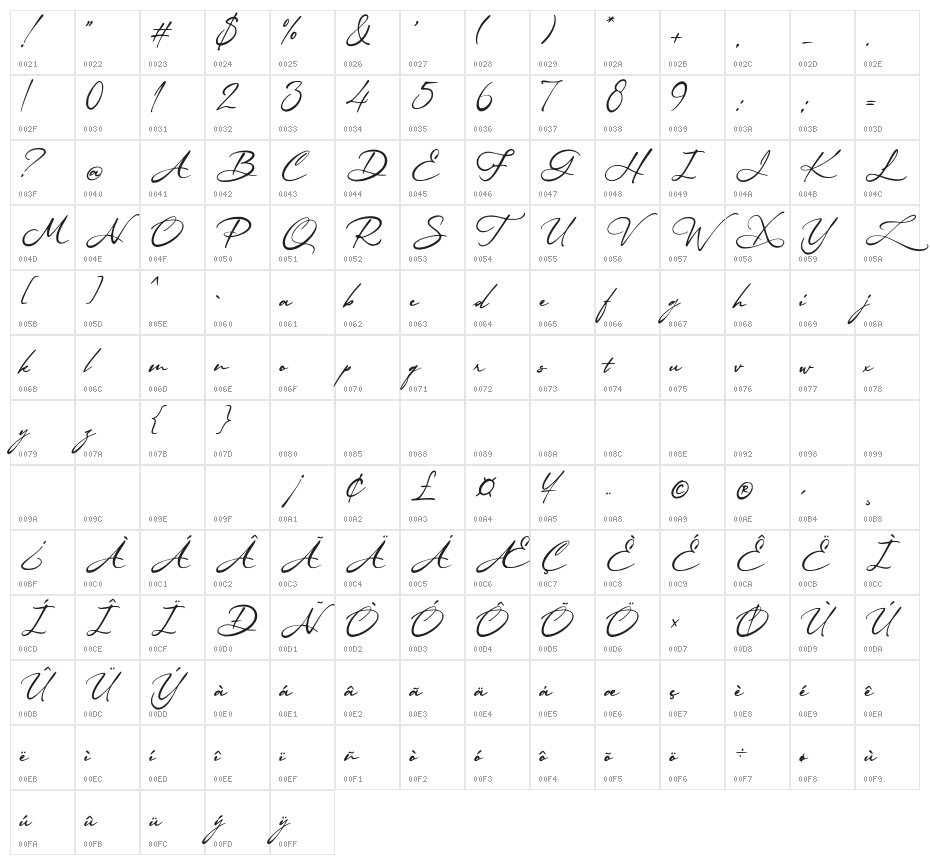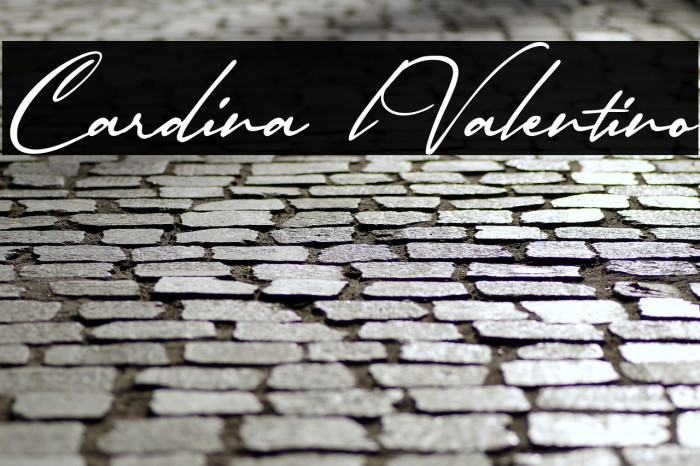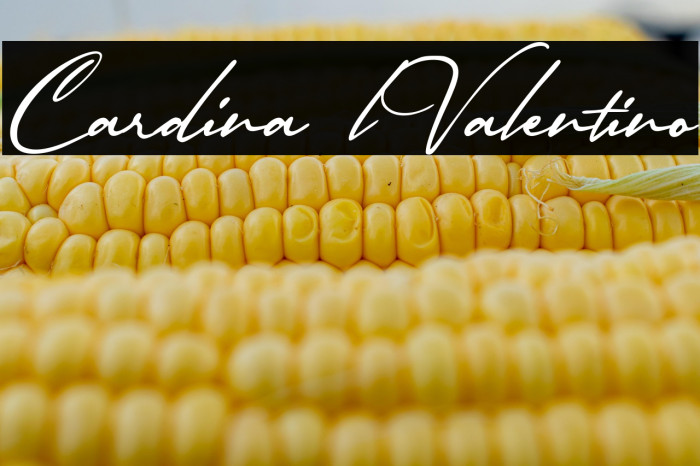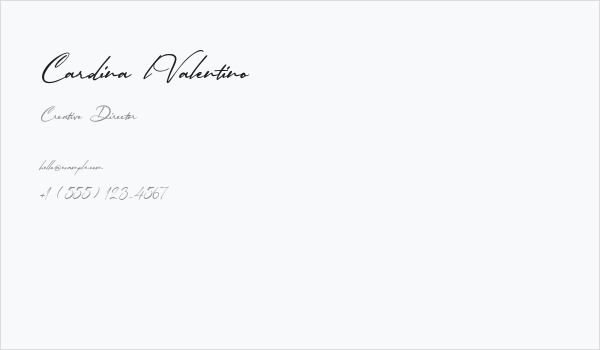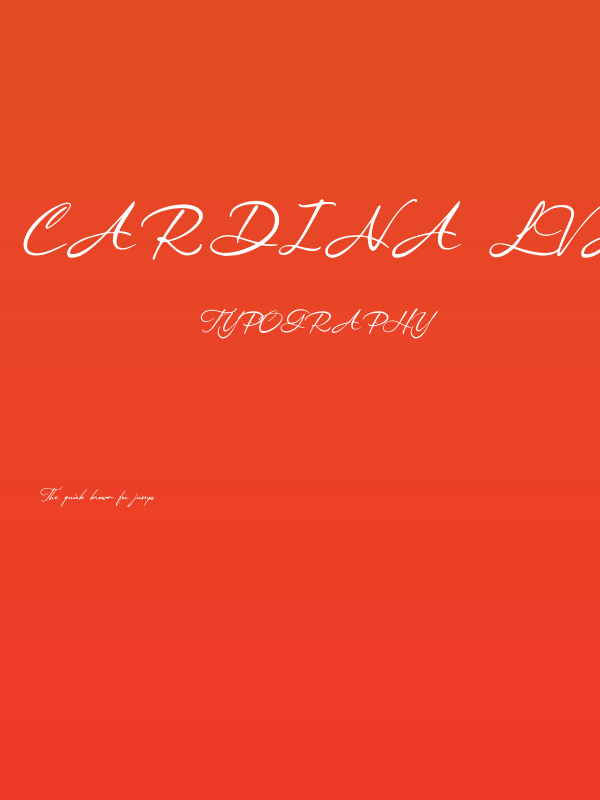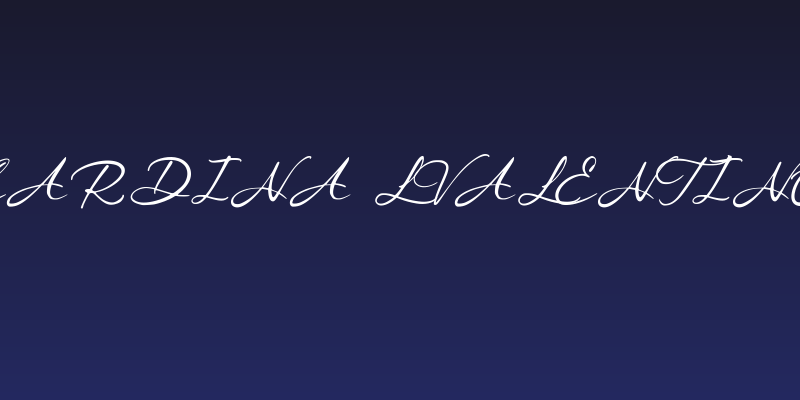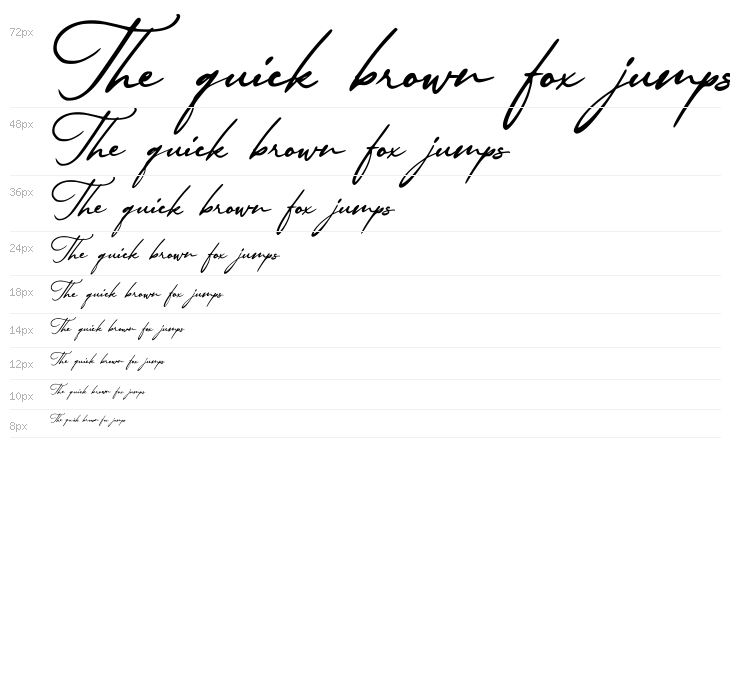
Cardina lValentino Font
Cardina lValentino Description
This elegant script font features a fluid and graceful design, characterized by its smooth, flowing lines and cursive style. The uppercase letters are slightly more ornate, with delicate loops and swirls that add a touch of sophistication. The lowercase letters maintain a consistent slant, enhancing the overall fluidity and elegance. Numbers and special characters are designed to complement the letters, maintaining the same graceful curves and stylish flair. This font exudes a sense of luxury and refinement, making it ideal for projects that require a touch of class and elegance.